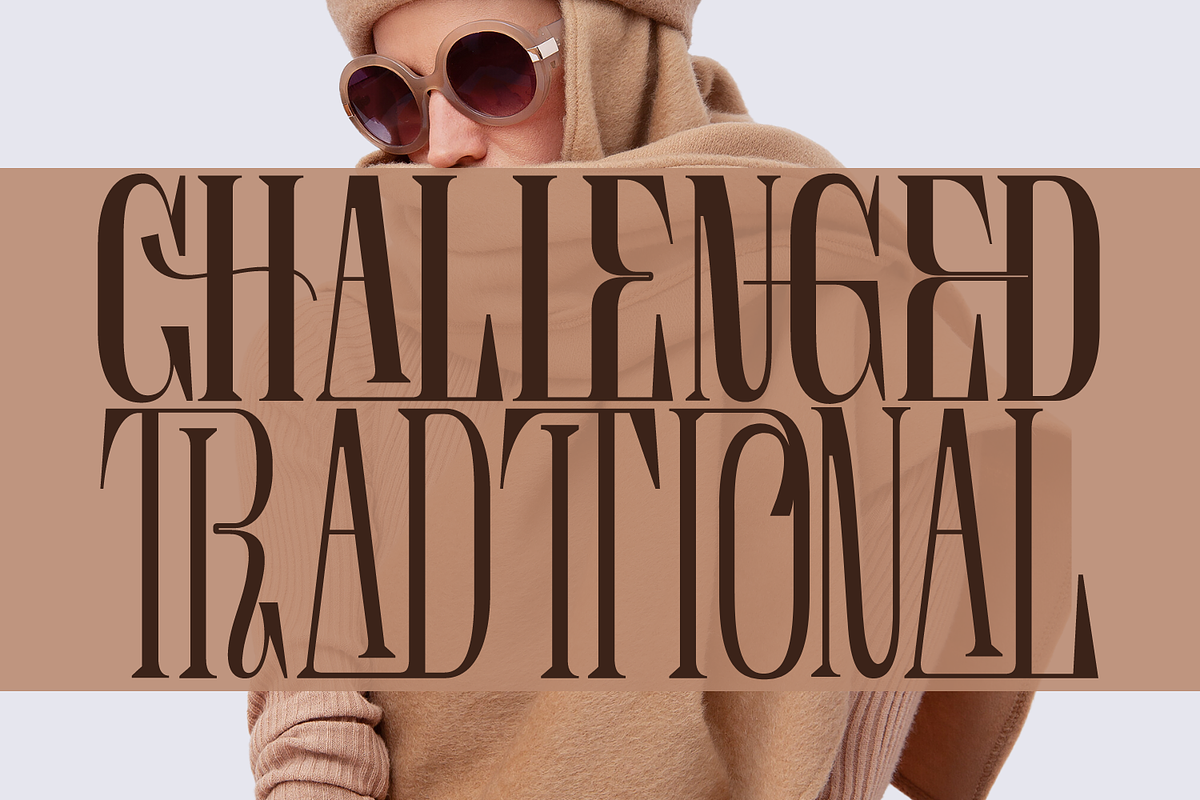
Challenged Traditional Font Free Download is a bold and unconventional serif typeface that breaks the rules while honoring classic design. With its strong contrasts, sharp angles, and experimental flair, this font is ideal for editorial headlines, high-fashion branding, poster designs, and projects that dare to stand out.
This font merges tradition with rebellion—delivering a unique visual voice that commands attention. Whether you're crafting a cutting-edge magazine layout or a brand with attitude, Challenged Traditional offers just the right balance of elegance and edge.